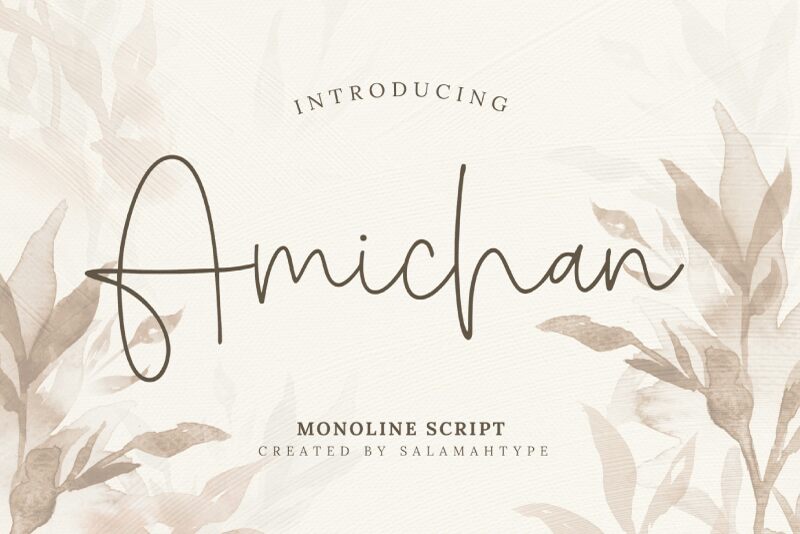
Amichan, designed by Salamahtype.com, is a handwritten font that exudes charm and delicacy with its extra-light weight. Its graceful strokes evoke the elegance of personal handwriting, offering an intimate touch to any project it graces. The flowing continuity between letters provides a seamless reading experience that is both aesthetically pleasing and effortlessly stylish.
This font's lightness makes it perfect for upscale branding, sophisticated invitations, and editorial designs where a touch of finesse is desired. Amichan's handwritten style brings a humanistic appeal to digital designs, making it an excellent choice for creatives looking to infuse personality into their work without sacrificing readability or refinement.
Amichan
Salamahtype